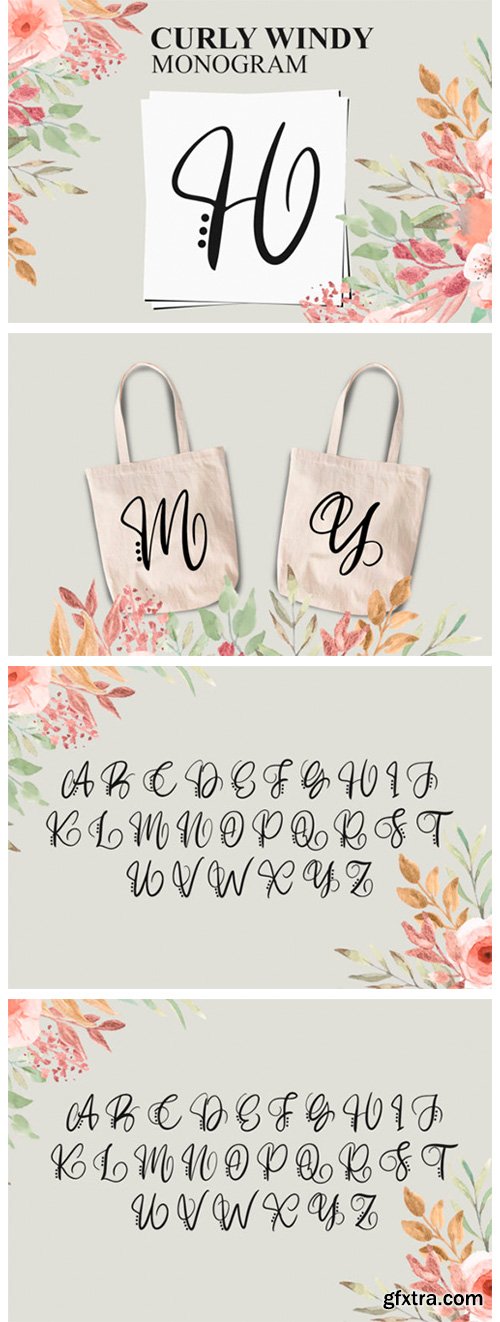
Curly Windy Font
Curly Windy is a unique script font. Fall in love with its authentic feel and use it to create gorgeous wedding invitations, beautiful stationary art, eye-catching social media posts, and cute greeting cards.